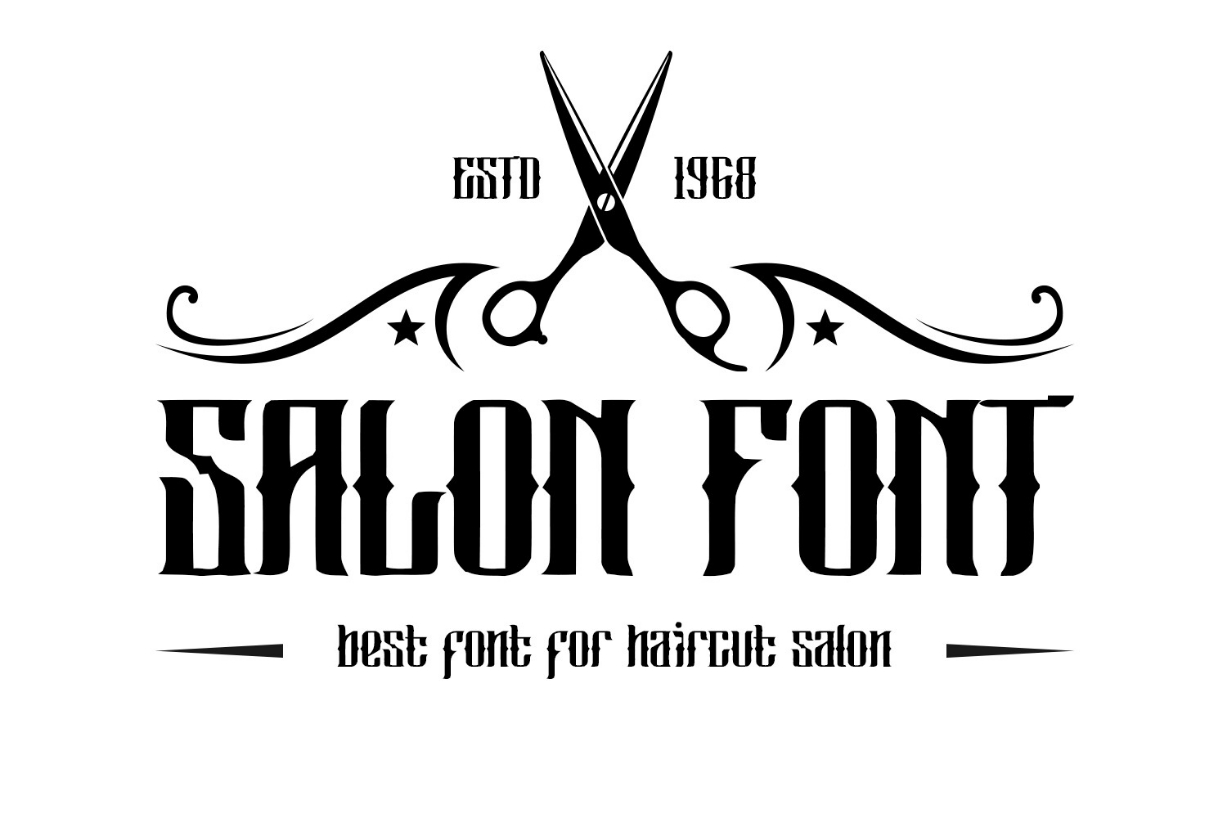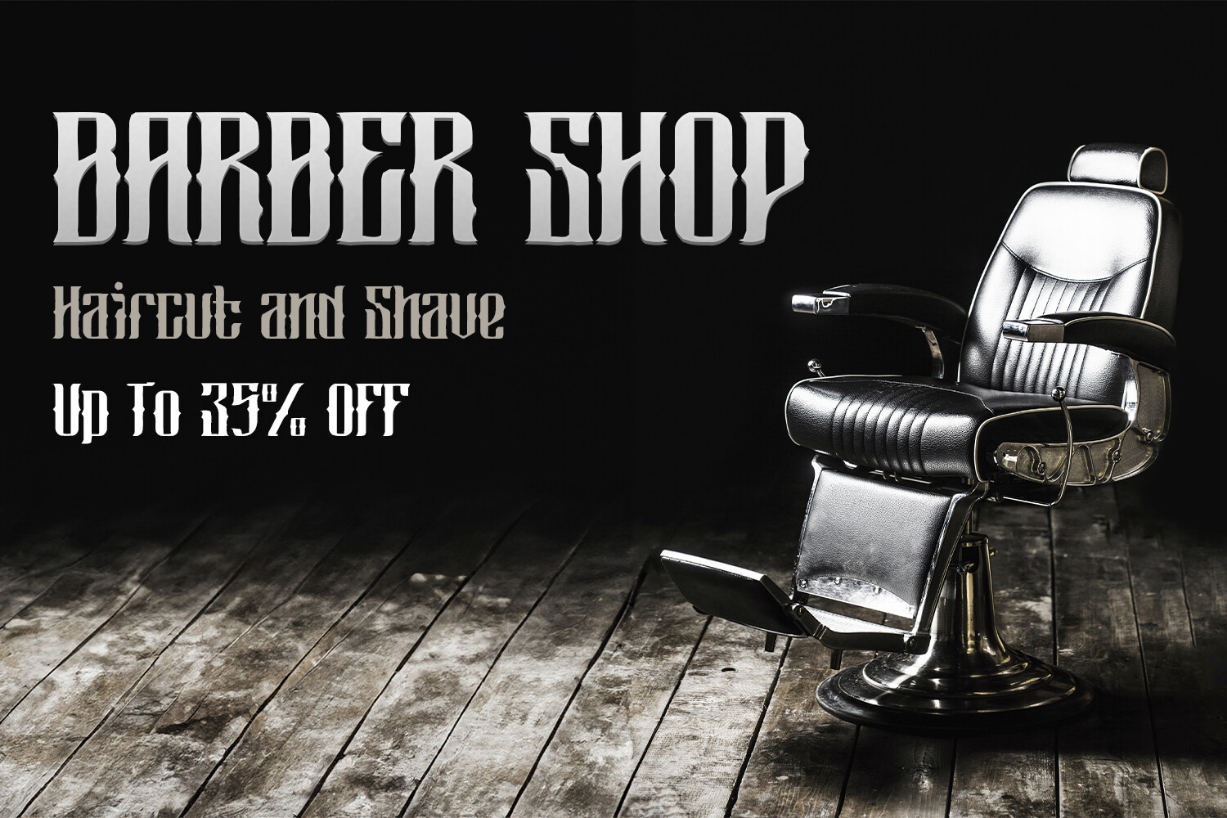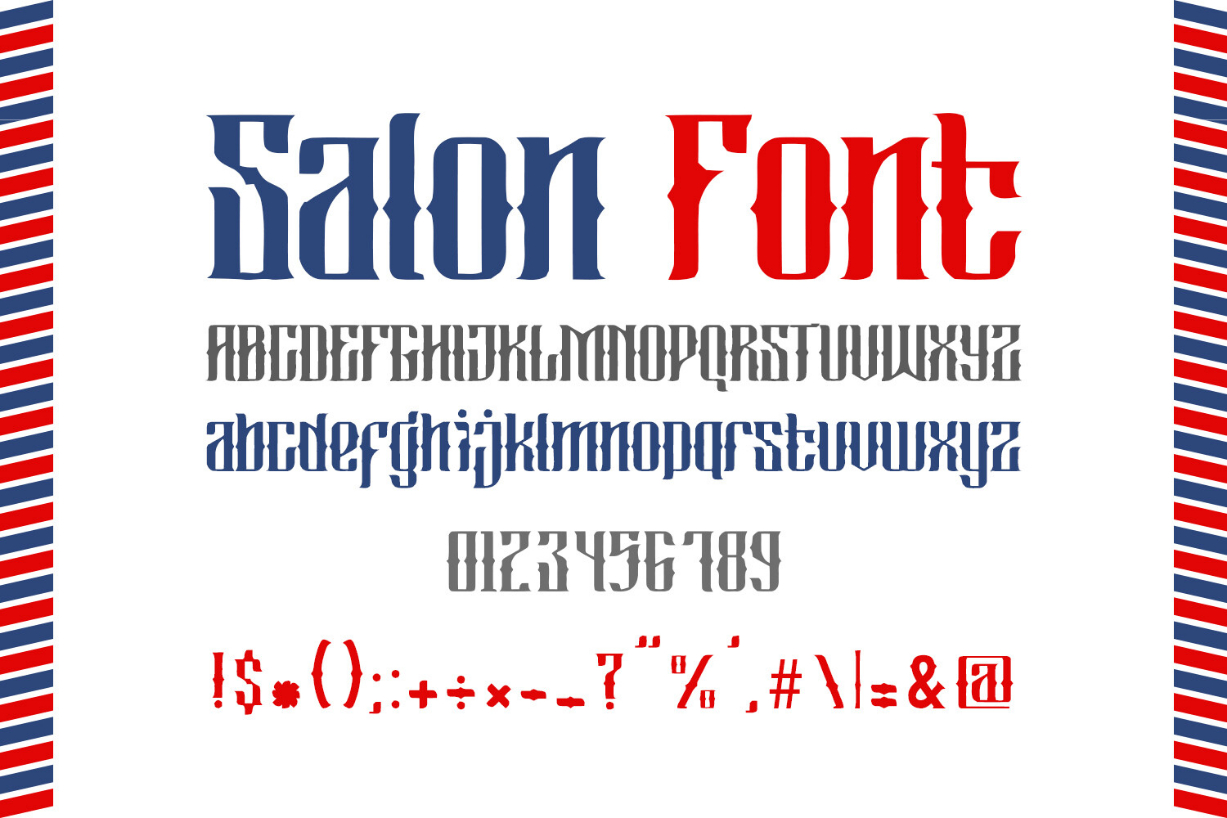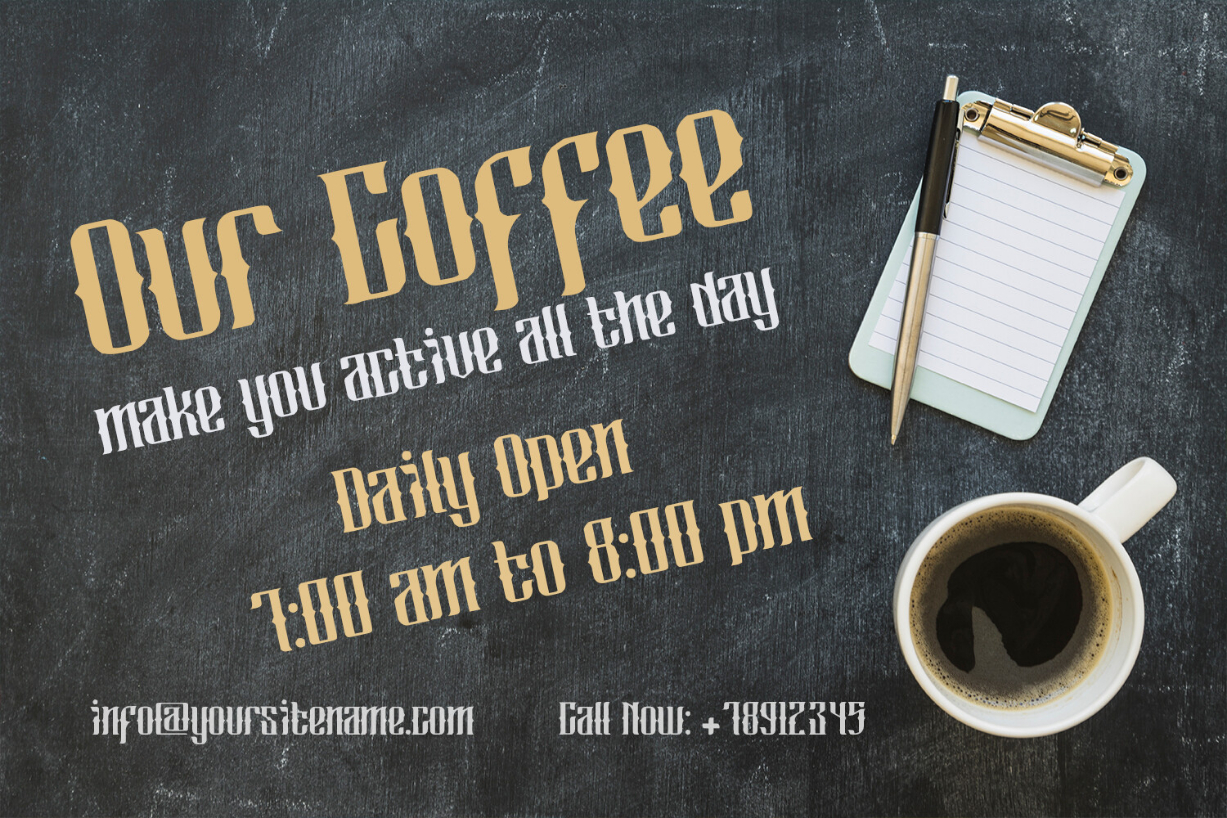
Salon Font
About Salon Font
Salon Font is a vintage typeface font that will add an old-rustic charm to any design project. This collection of fonts is perfect for everything in your project with a vintage, retro, wild, or organic style. It was made with the intention of being used for a product logo like a pomade, coffee, barber shop, or packaging label. It’s great for branding, logo designs, lettering, logotypes, crafts, posters, and much more.